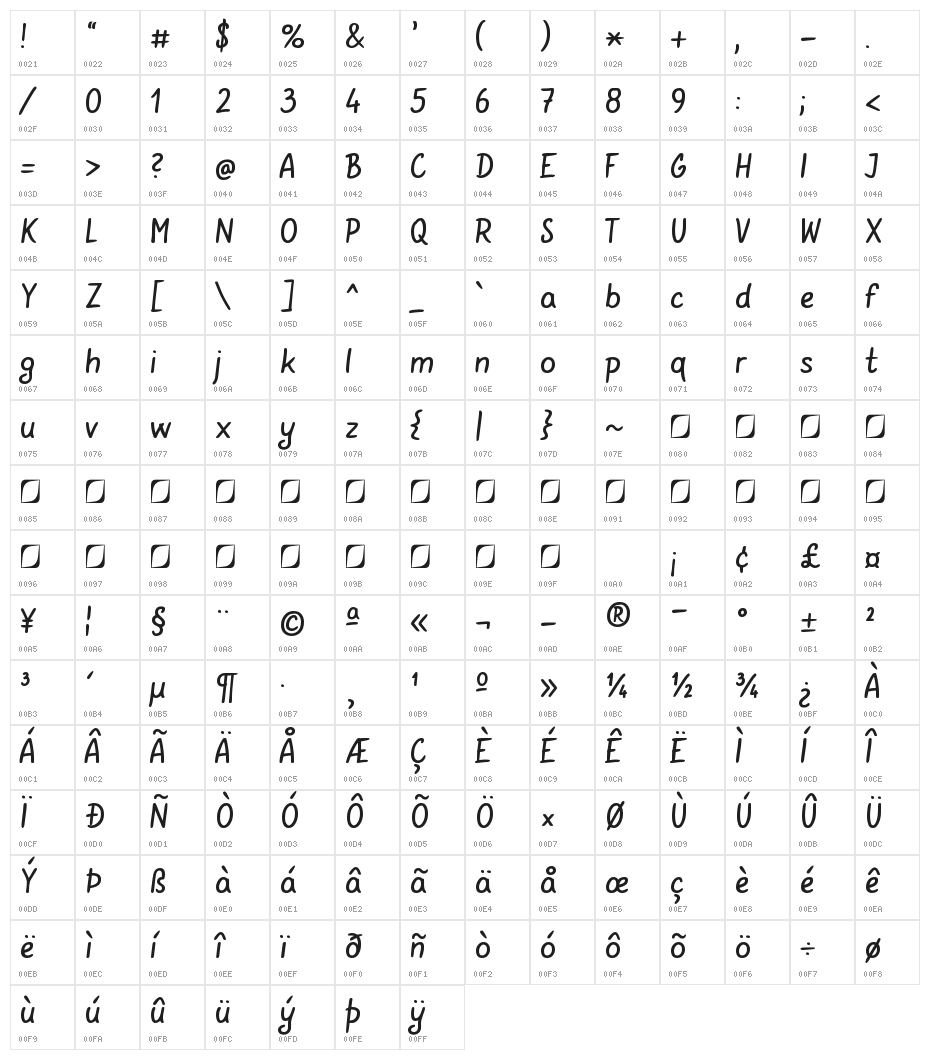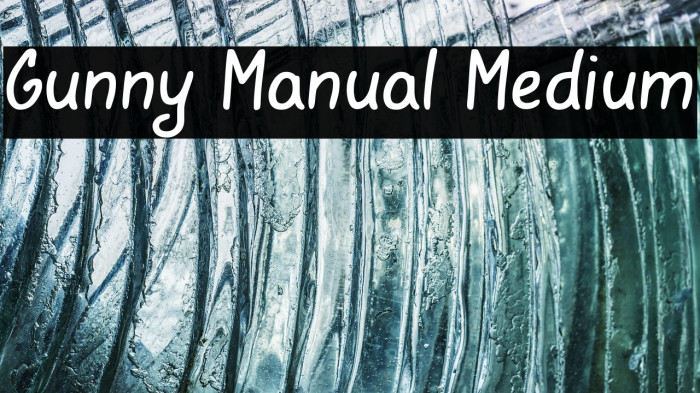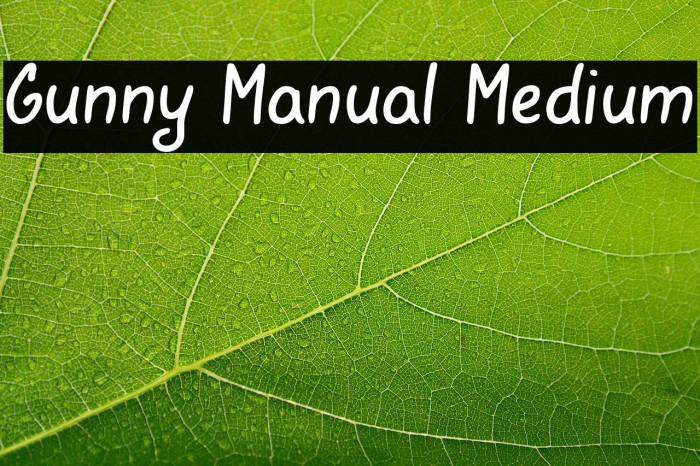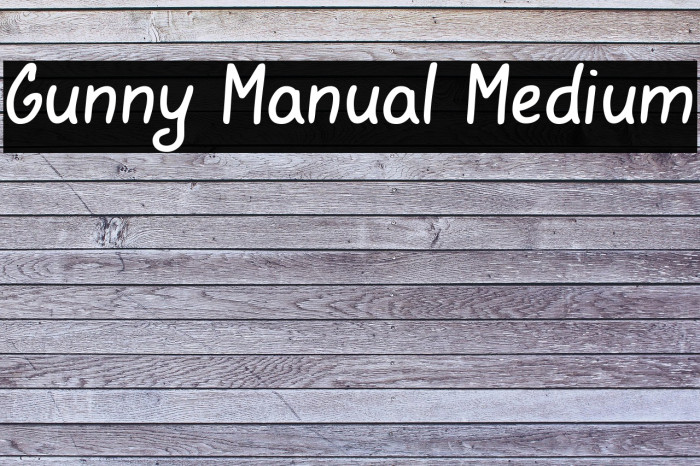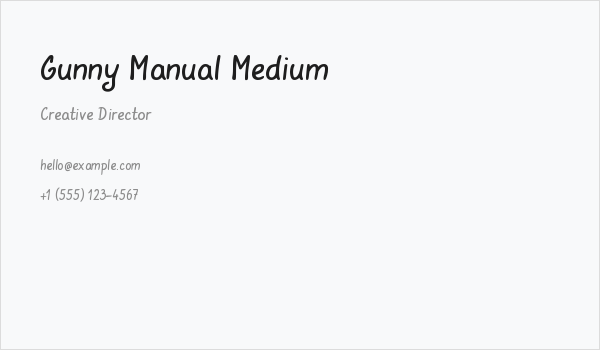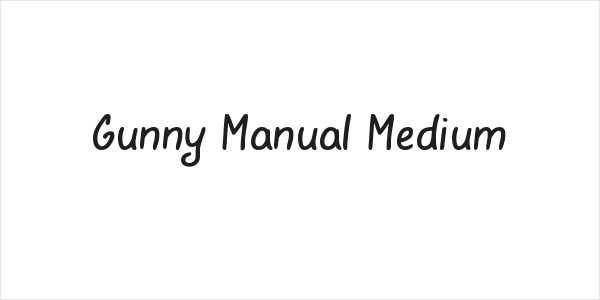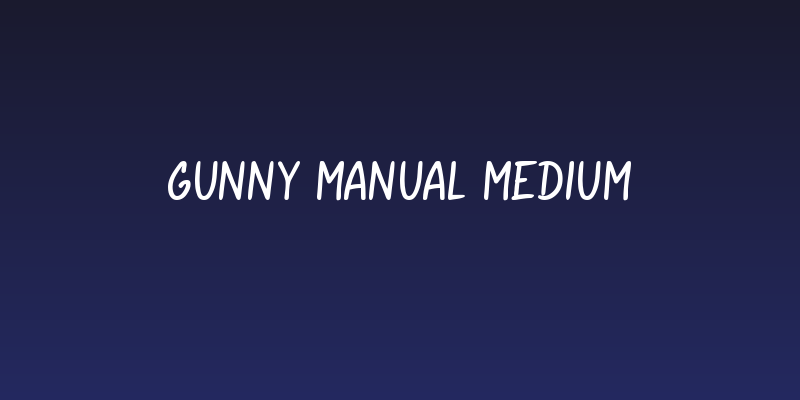
Gunny Manual Medium Font
Gunny Manual Medium Description
This font features a handwritten style with a casual and friendly appearance. The characters are slightly slanted, giving a dynamic and informal feel. The strokes are consistent in width, providing a uniform look across all letters and numbers. The rounded edges and smooth curves enhance its approachable and warm character. It maintains good readability with a balanced spacing between characters, making it suitable for various design applications. The font includes a full set of uppercase and lowercase letters, numerals, and a variety of special characters, ensuring versatility in usage.